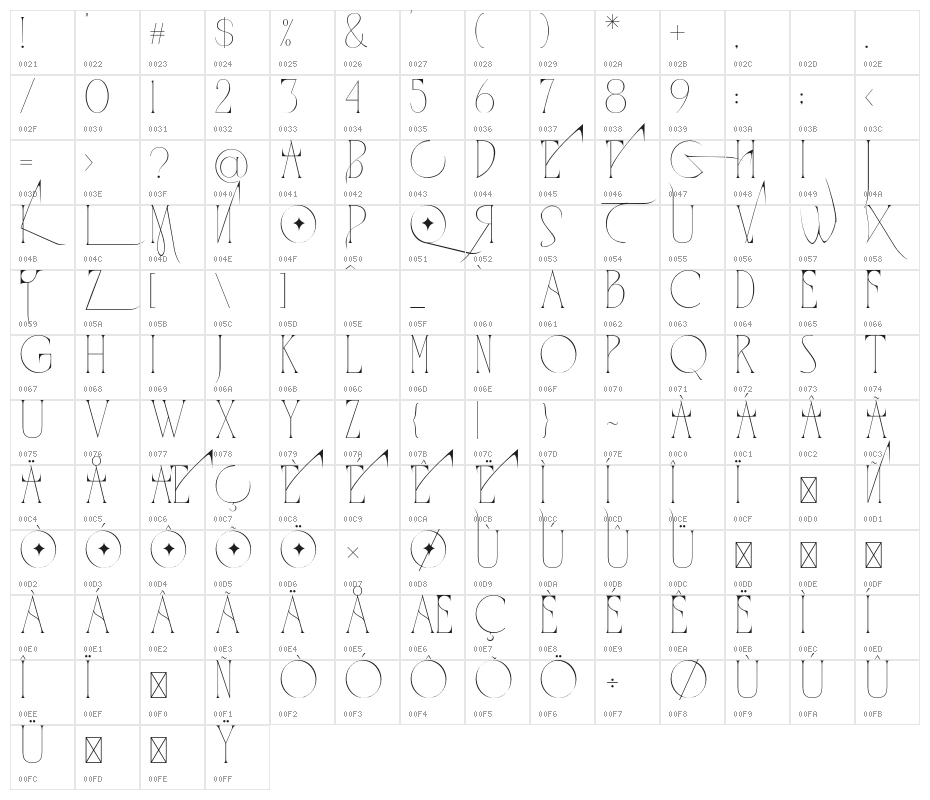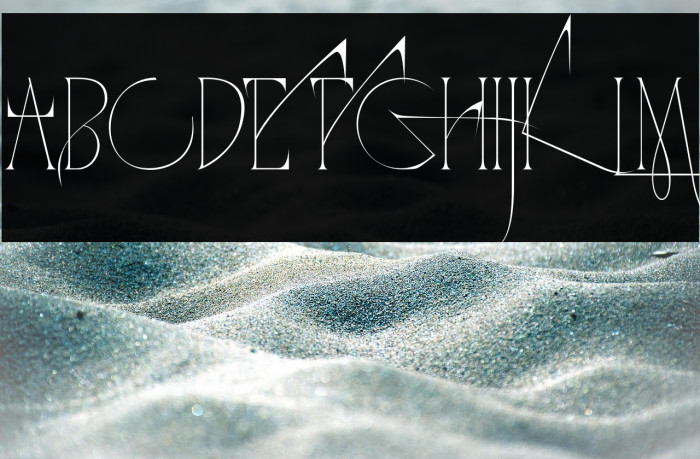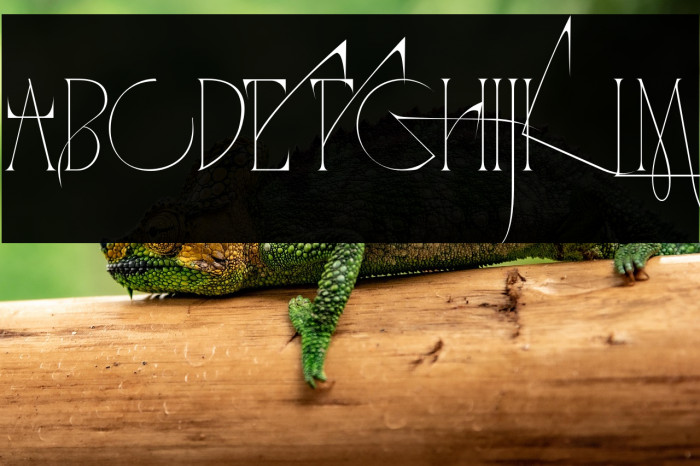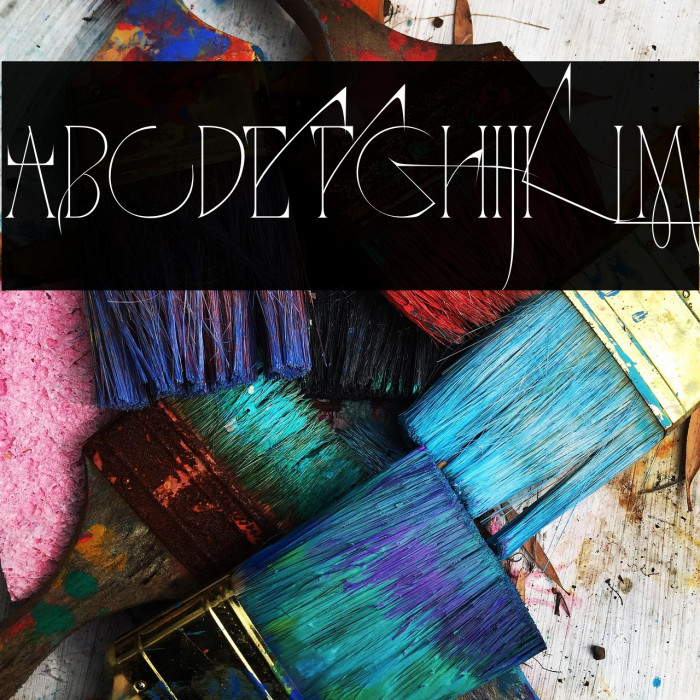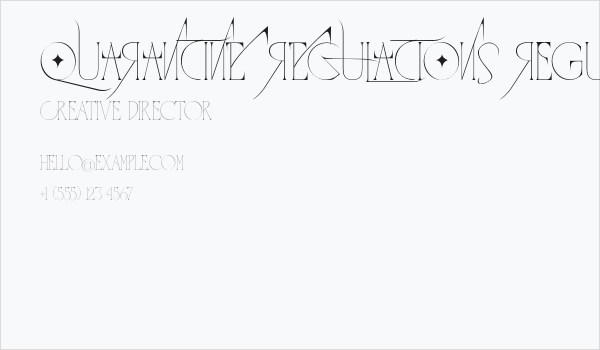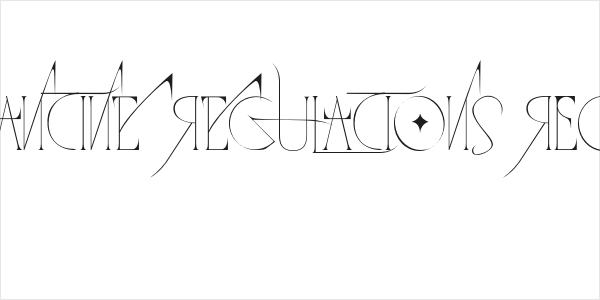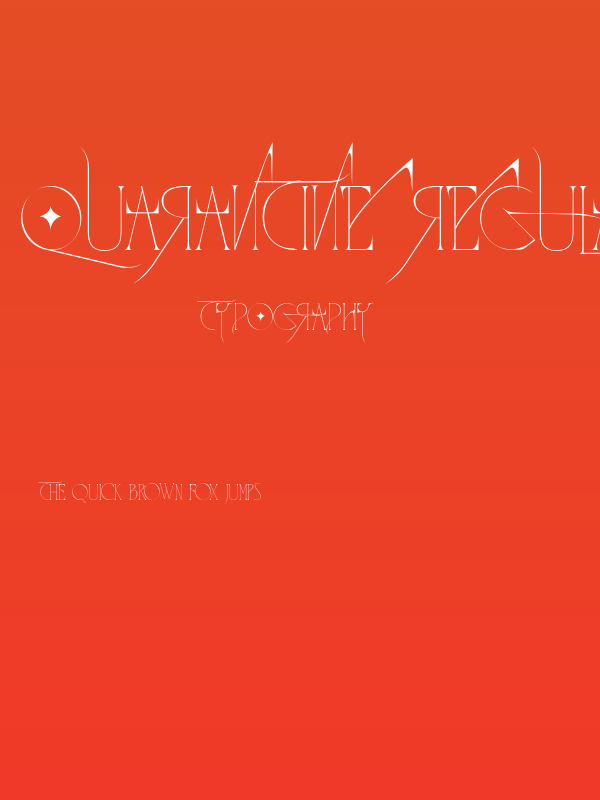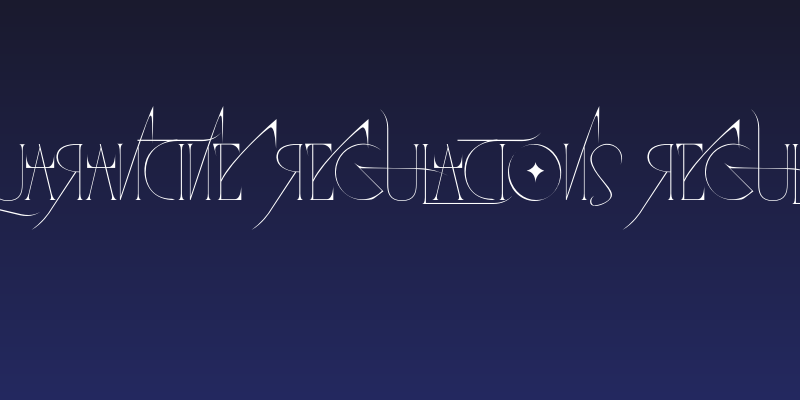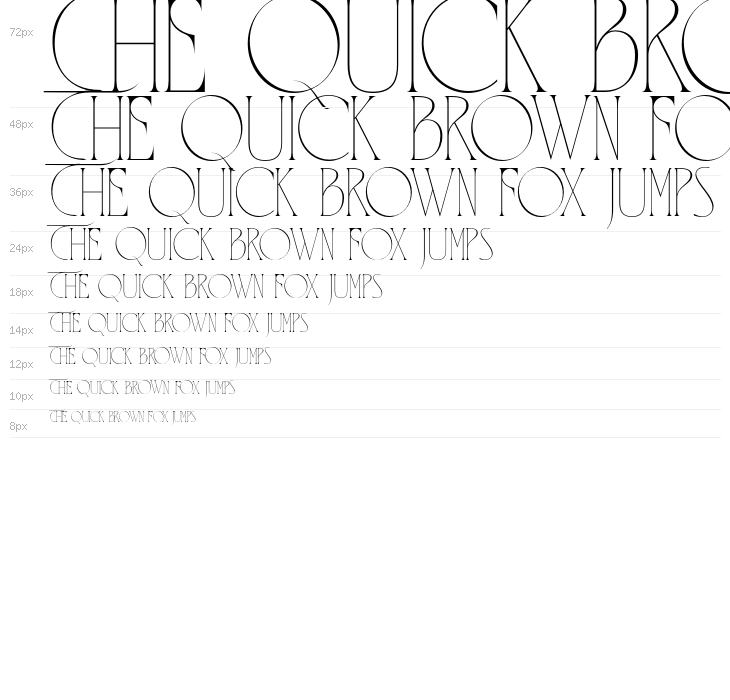
QUARANTINE REGULATIONS Regular Font
QUARANTINE REGULATIONS Regular Description
This font features a highly decorative and artistic style with a modern twist. The uppercase letters are characterized by elongated vertical strokes and sharp, angular serifs, giving them a dramatic and elegant appearance. The lowercase letters maintain a consistent style, with smooth curves and a refined aesthetic. The numerals are uniquely styled, incorporating both sharp angles and rounded elements, which adds to the font's distinctive look. Special characters are designed with the same attention to detail, ensuring a cohesive visual experience. The overall design is both sophisticated and eye-catching, making it suitable for projects that require a bold and artistic statement.